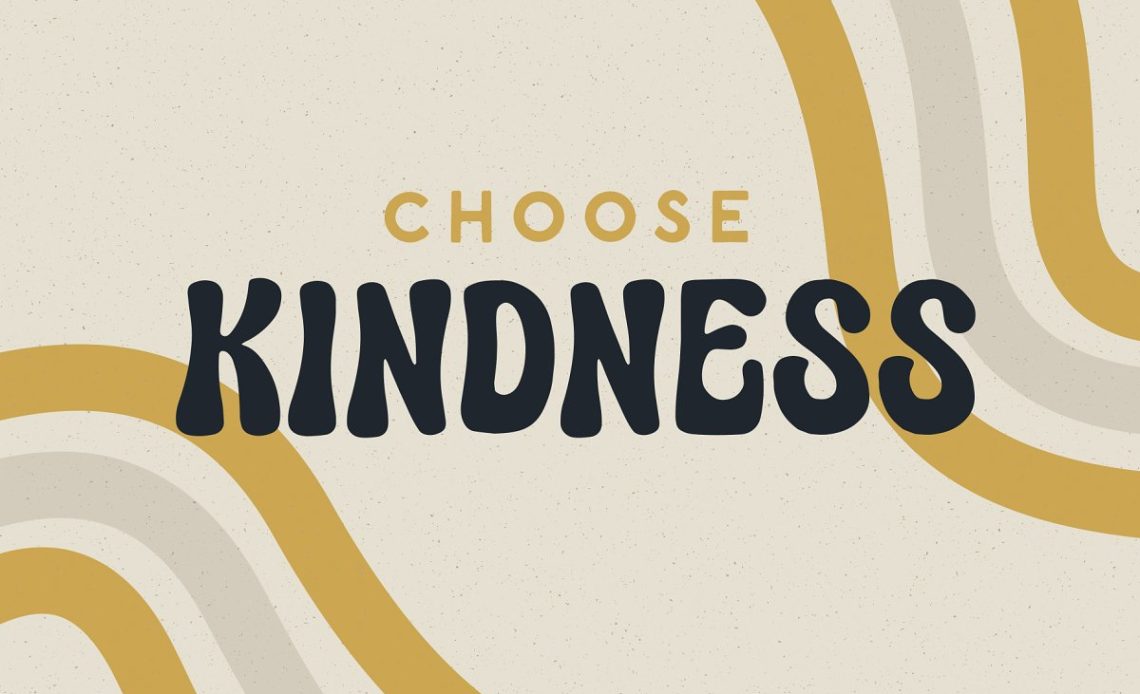
Introducing Retrospect Font, the ultimate choice for adding a touch of quirkiness and creativity to your design projects! Created by the talented Rachel Kick, this hand-drawn font is all set to elevate your creations and captivate your audience.
Retrospect Font brings a playful and organic feel to your designs, making it an ideal choice for branding, social media, and marketing endeavors. Its unique and eye-catching style will instantly grab attention, leaving a lasting impression on your viewers.
Looking to create spooky Halloween designs? Retrospect Font has got you covered! With its whimsical yet eerie vibe, it's the perfect companion for all things ghostly and haunting. Let your imagination run wild as you conjure up stunning posters, invitations, and graphics that will give your audience goosebumps.
But that's not all! If you have a groovy, retro project in mind, Retrospect Font is your go-to choice. Its vintage-inspired aesthetics will transport you back to the golden era of disco and psychedelic art. Whether it's album covers, party flyers, or funky branding, this font will infuse your designs with nostalgia and irresistible charm.
What sets Retrospect Font apart is its versatility. It effortlessly adapts to various design styles, allowing you to explore endless possibilities. From elegant and classy to fun and whimsical, this font can do it all. Let your creativity flow as you experiment with different layouts, colors, and effects, knowing that Retrospect Font will always deliver stunning results.
When it comes to marketing your products or services, Retrospect Font becomes your secret weapon. Its captivating and attention-grabbing nature ensures that your message stands out amidst the noise. Whether you're creating social media posts, advertisements, or website banners, this font will make sure your content is impossible to ignore.